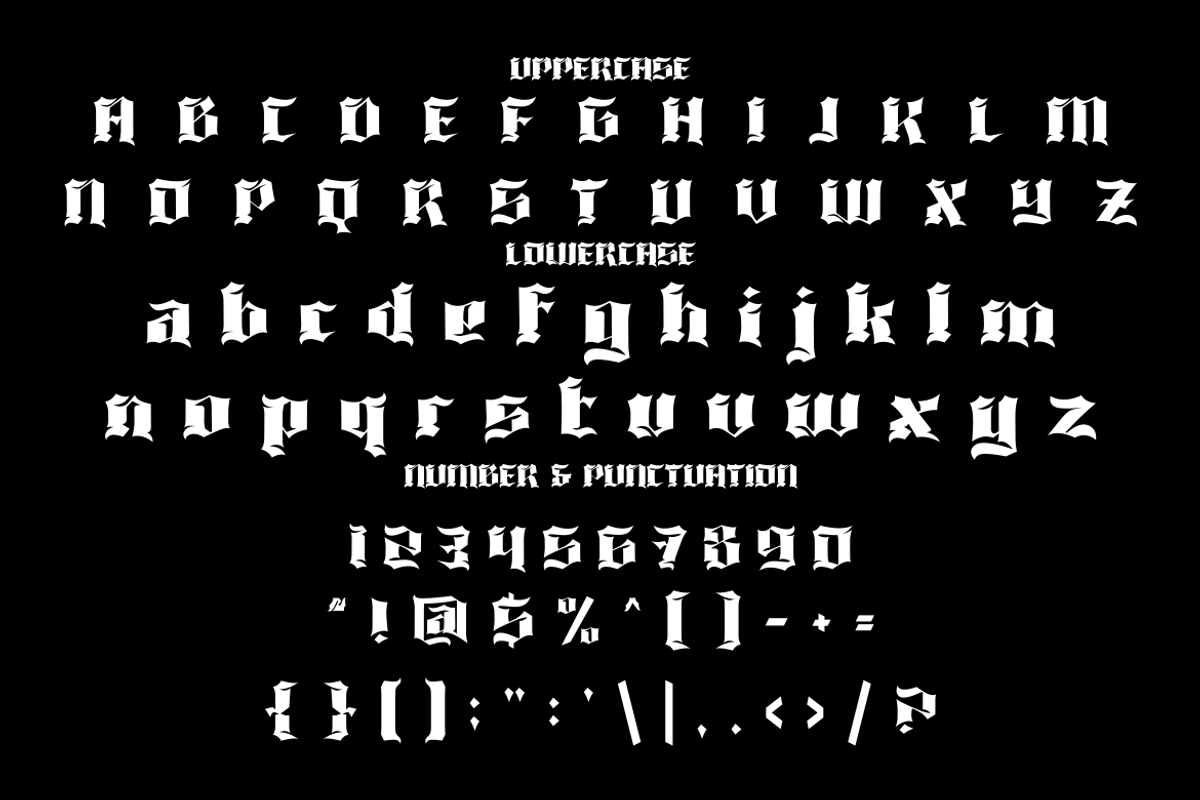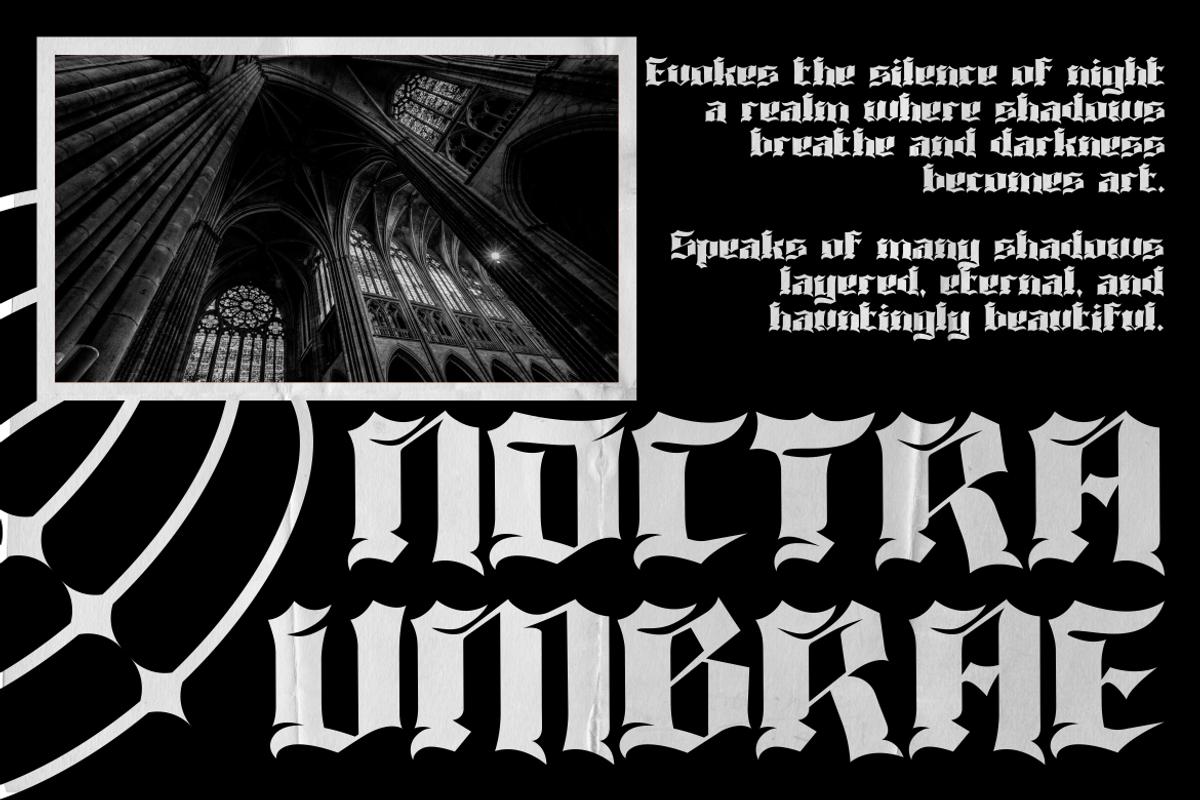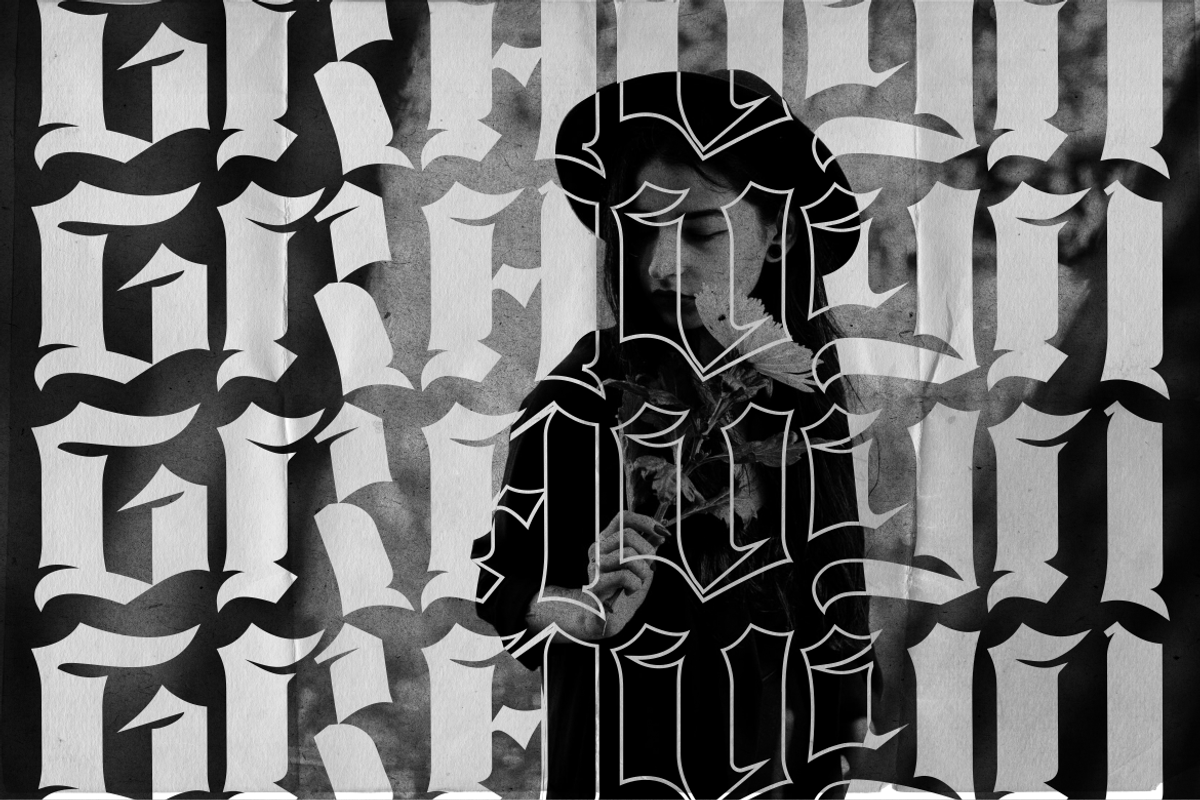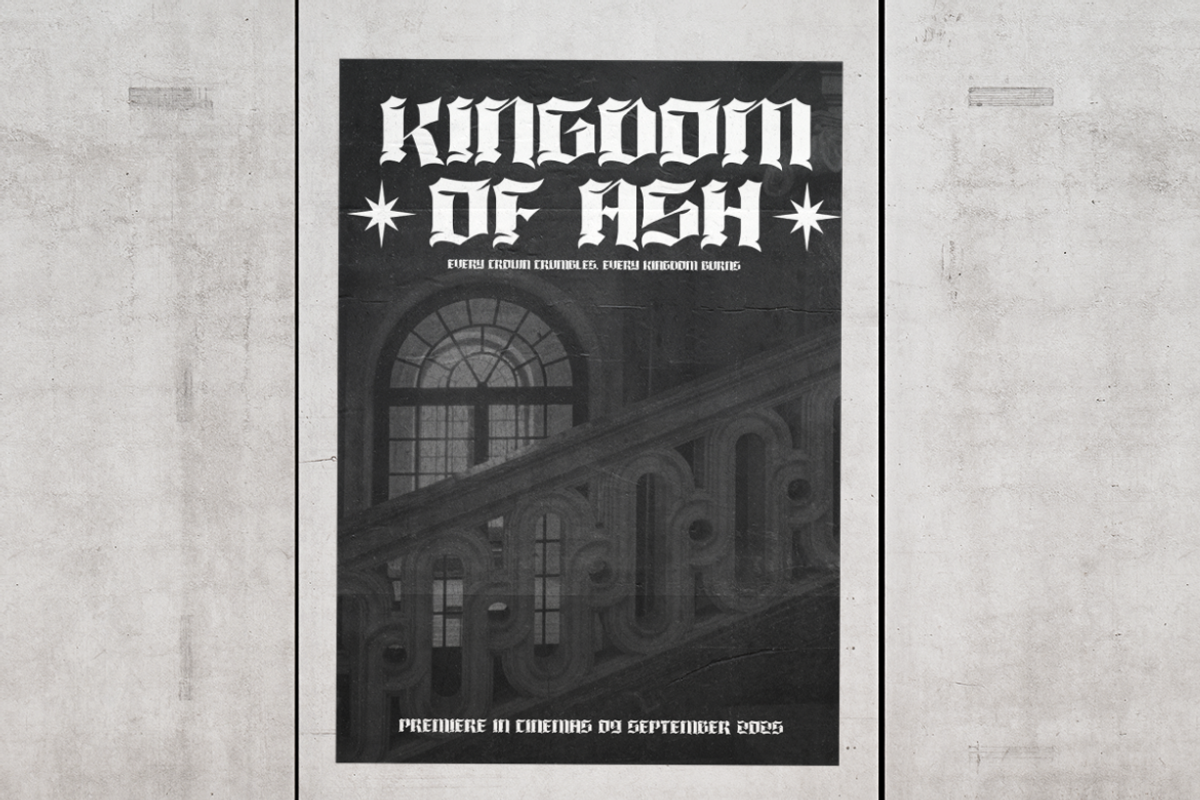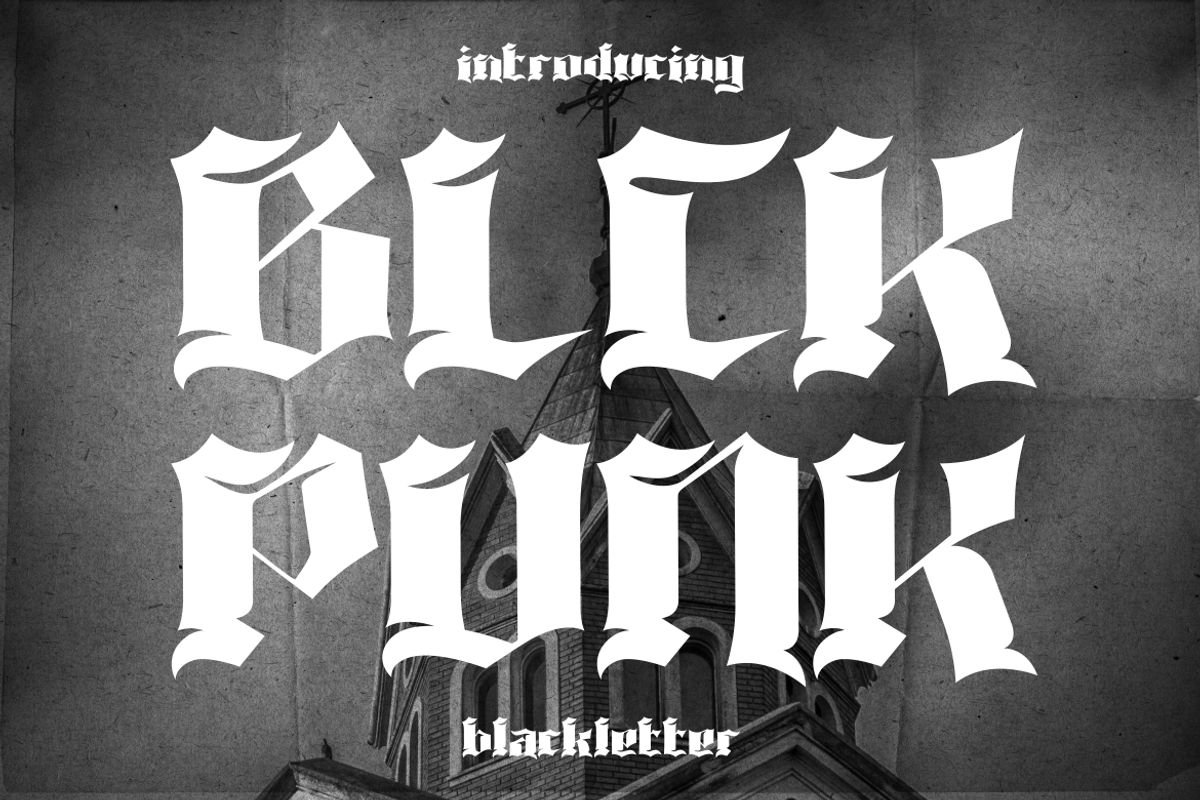
Blckpunk Blackletter Font
Blckpunk Blackletter Font is a striking display typeface inspired by gothic traditions and modern underground culture. Each letter is crafted with sharp edges, bold curves, and heavy contrast, giving the font a raw, dramatic presence. The style reflects a mix of medieval blackletter forms and punk aesthetics, making it stand out in logos, posters, band artwork, and tattoo-inspired designs. Its textured details and aggressive strokes create an intense atmosphere, ideal for projects that demand boldness and authority.
This font is versatile for various creative works, from heavy metal album covers to vintage gothic posters. It works well for branding, merchandise, book covers, film titles, and fashion graphics with dark themes. Its strong legibility ensures clarity even with decorative complexity, offering both artistic flair and functional impact. Blckpunk brings a rebellious, timeless energy to your designs, combining classic gothic roots with a modern punk spirit.